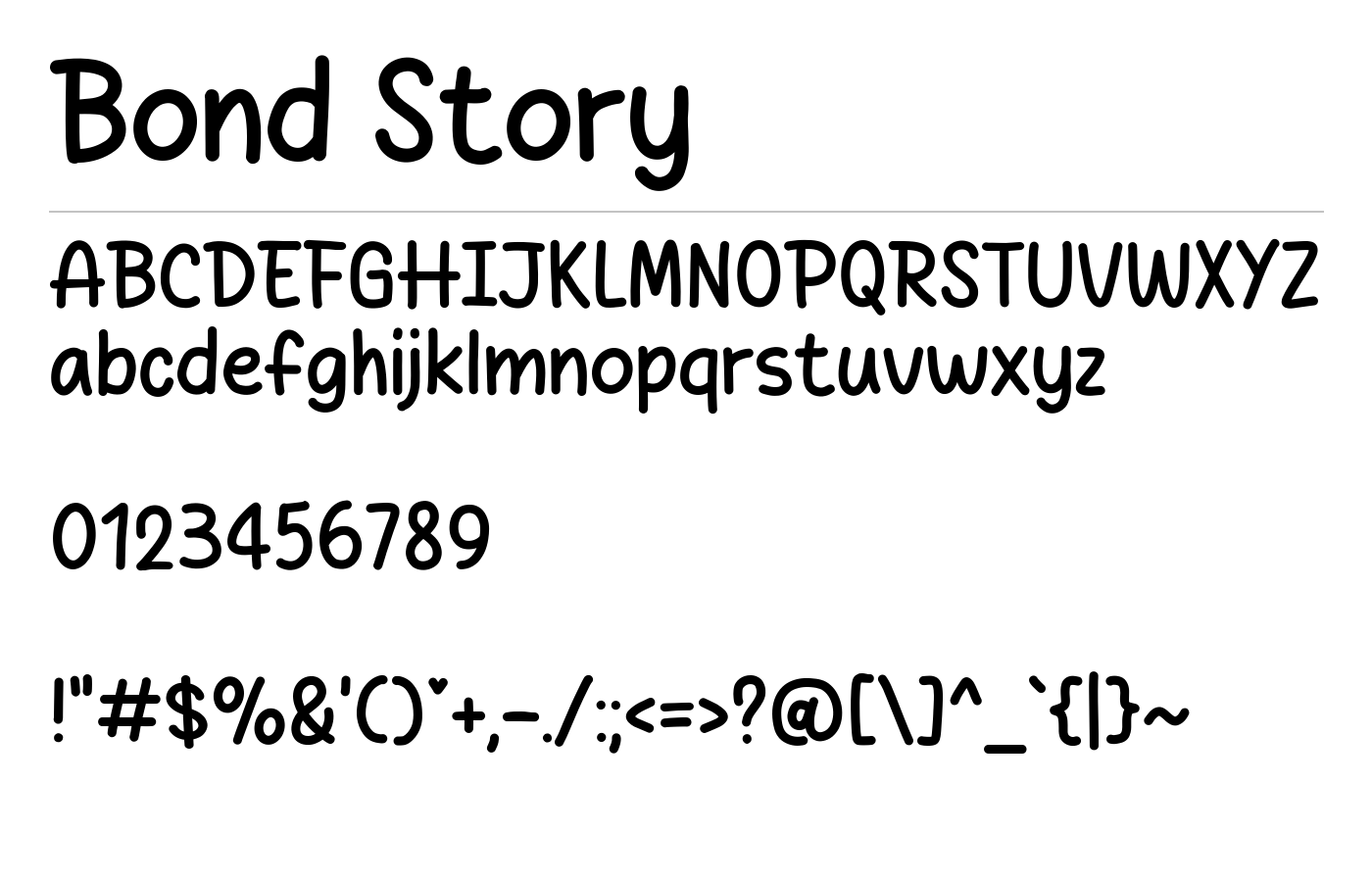
Bond Story is a playful, rounded sans serif font with a casual, hand-drawn feel. Its slightly irregular strokes and friendly letterforms make it ideal for creative projects, children’s content, and informal branding that wants to convey warmth and approachability. This font works well for headlines, logos, and packaging where a fun and personal touch is needed.
Bond Story Font
About Bond Story Font
| Font family | Bond Story Font |